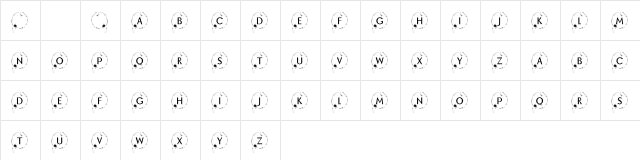
KR Happy New Year 2002 Regular
Design Context for KR Happy New Year 2002 Typeface
KR Happy New Year 2002 is a composed and adaptable typeface that performs quietly and consistently across a wide range of design contexts.